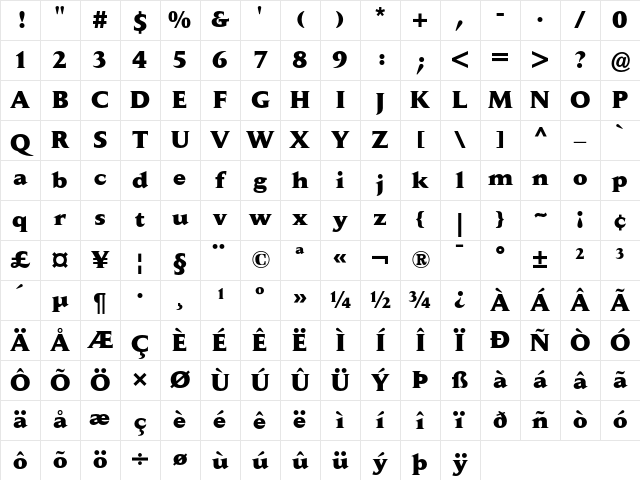
Jaeger Daily News Extra Bold
Style: Extra Bold
Design Context for Jaeger Daily News
Jaeger Daily News is a composed and adaptable typeface that performs quietly and consistently across a wide range of design contexts. Its bold stroke weight gives it real presence on the page.